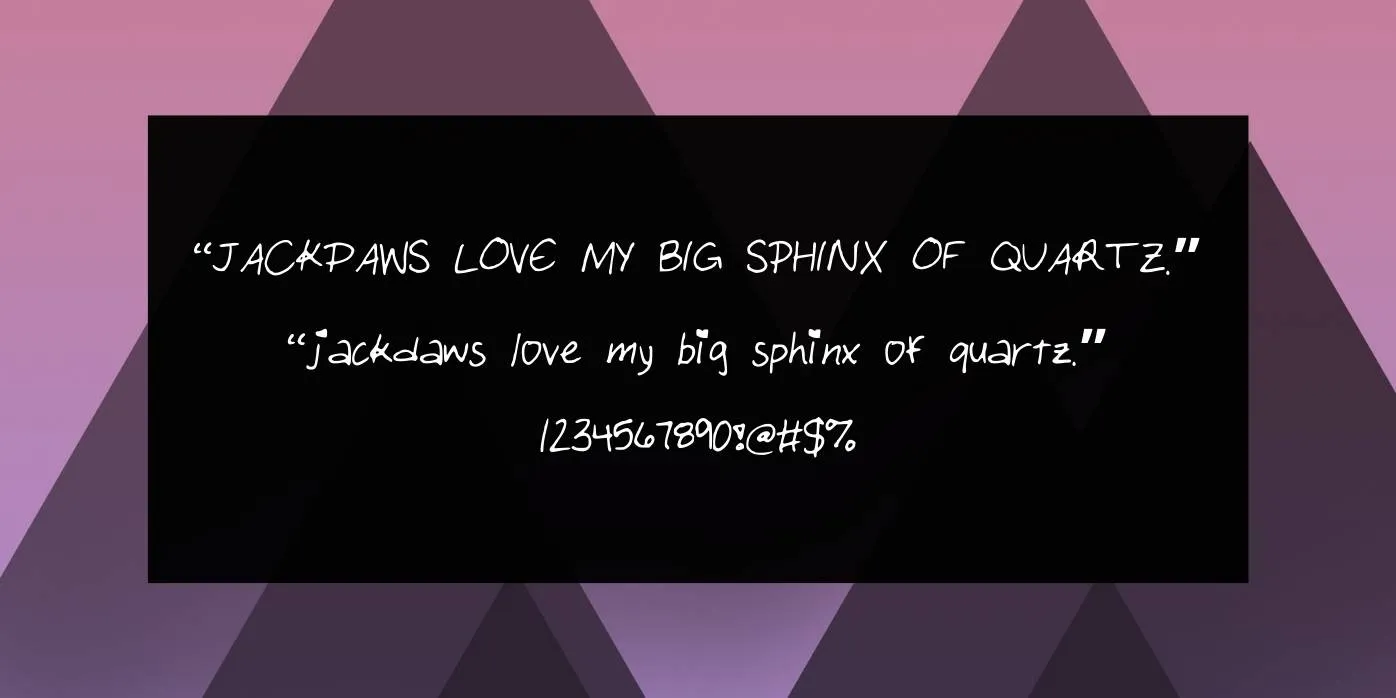
Paper Girl Font
Paper Girl Font is a script font that was created by Hailey Elizabeth. This font is licensed as Freeware, Non-Commercial, which means it is free for personal use only. To use the font commercially, you will need to purchase a license or contact. This font glyph has been designed with a paperclip in the center which makes it very unique.
The Paper Girl Font was inspired by the classic girlie magazines from the 1950s. It is quite similar to the lavenderia font and it has a pairing personality with that, so you can combine them and make something crazy stuff. The Font includes upper and lowercase letters, numbers, and punctuation marks. It also supports international characters.